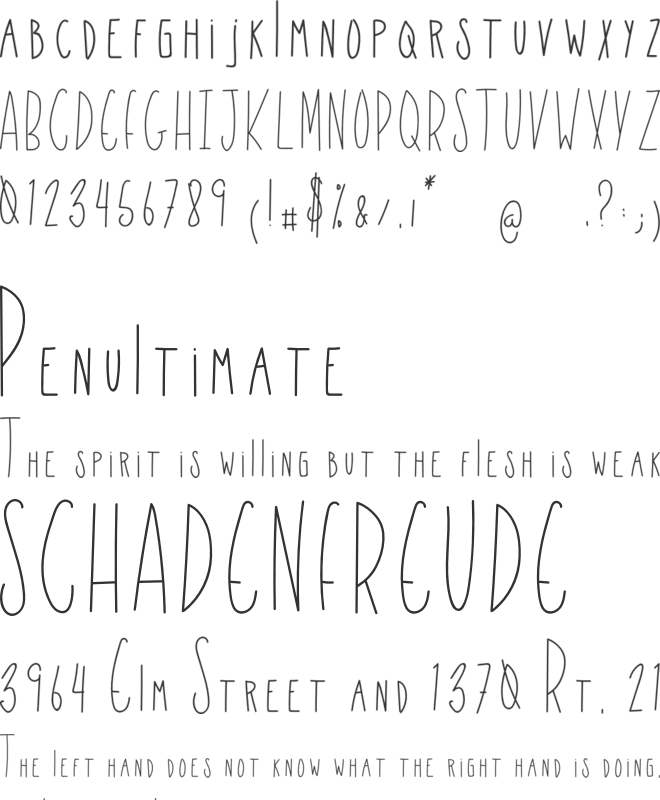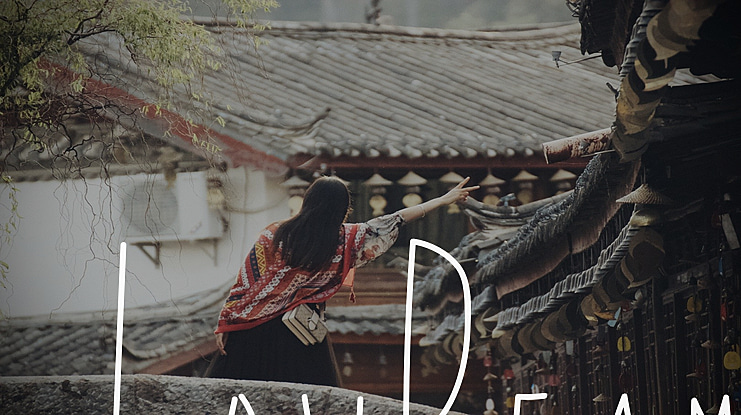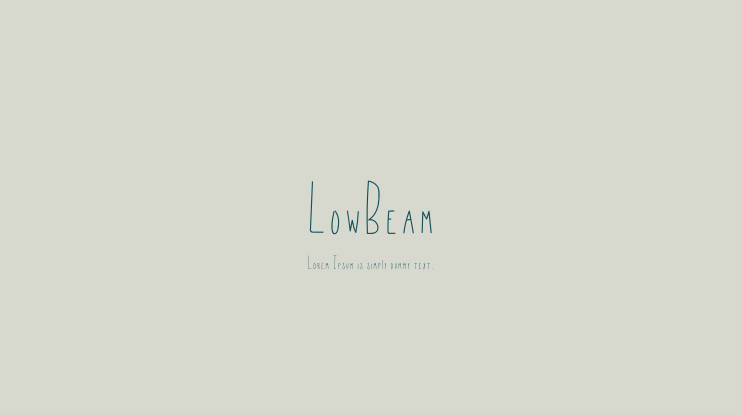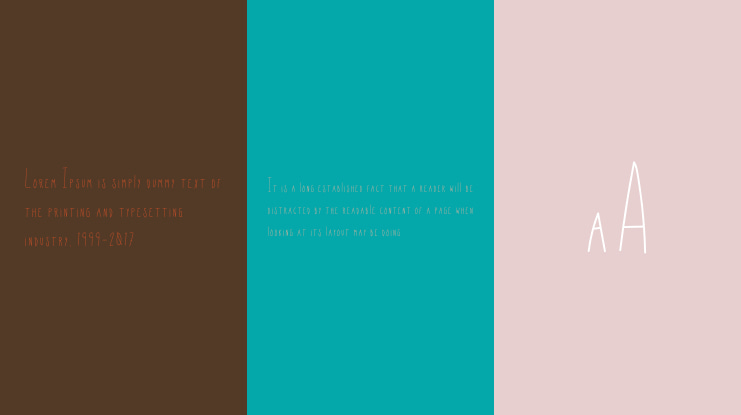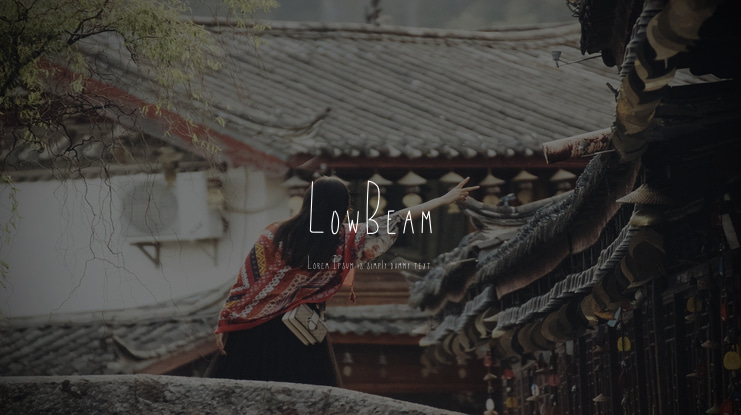
LowBeam Font Family
Dwayne Adams
LowBeam Font was created by Dwayne Adams. This font is hand drawn and features upper and lowercase characters, roman numerals, and special characters.